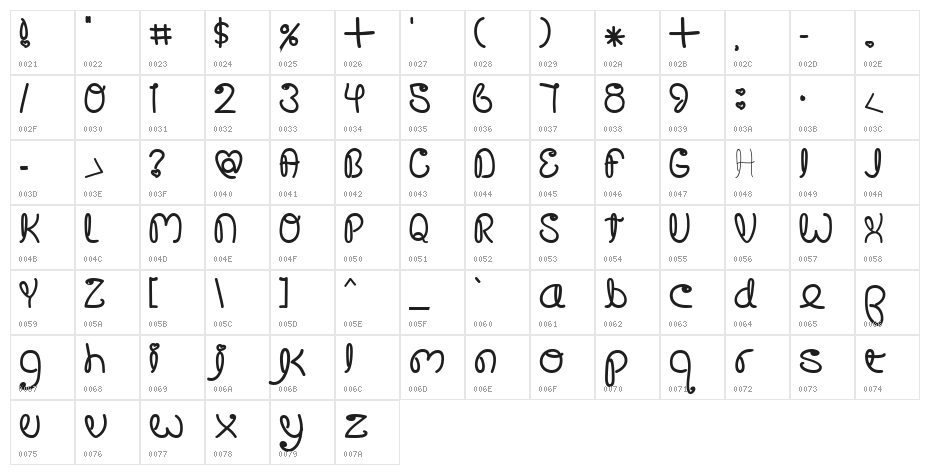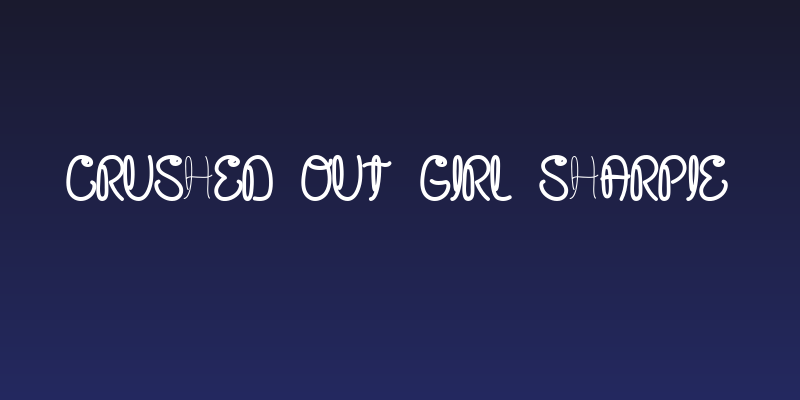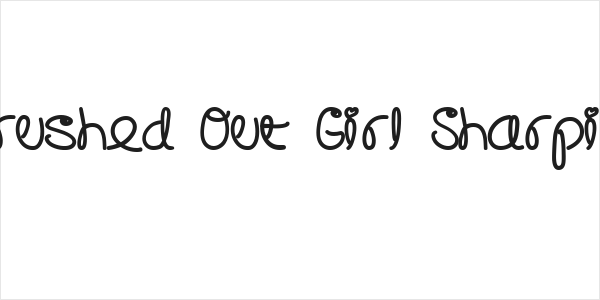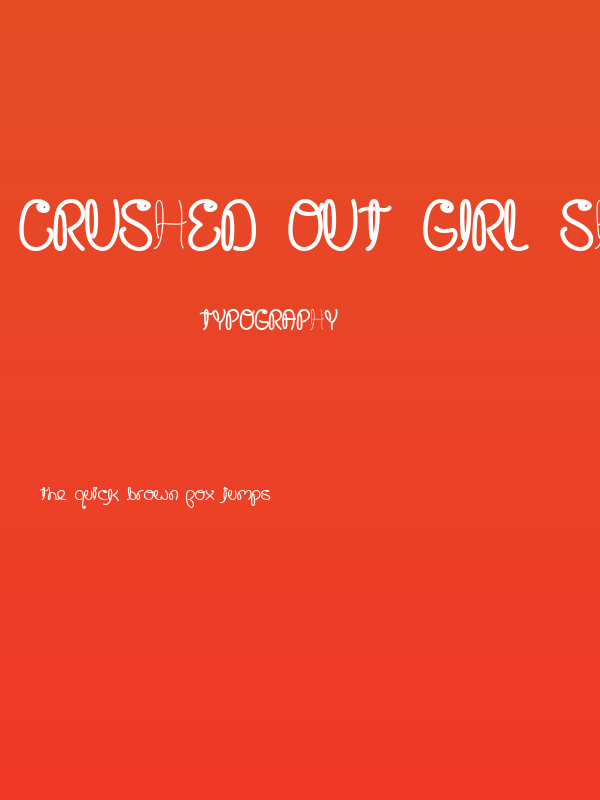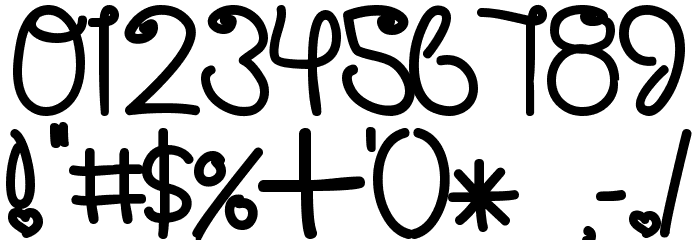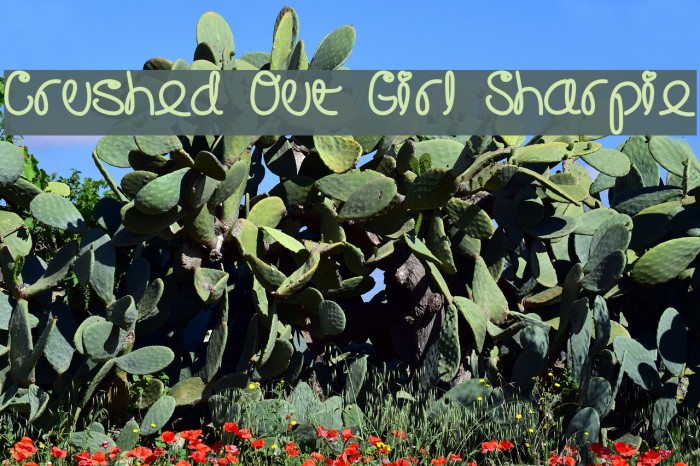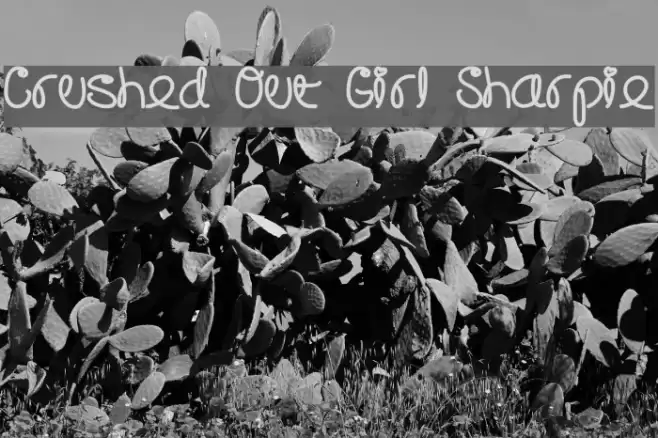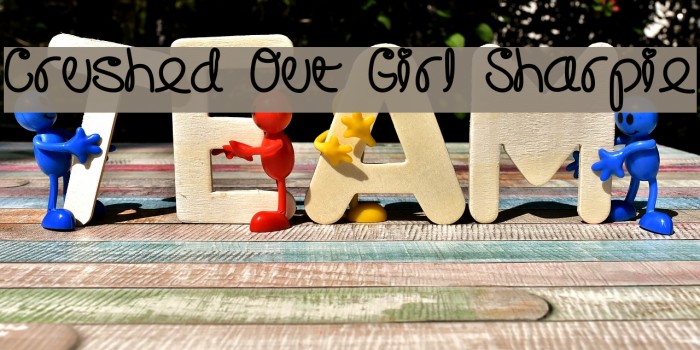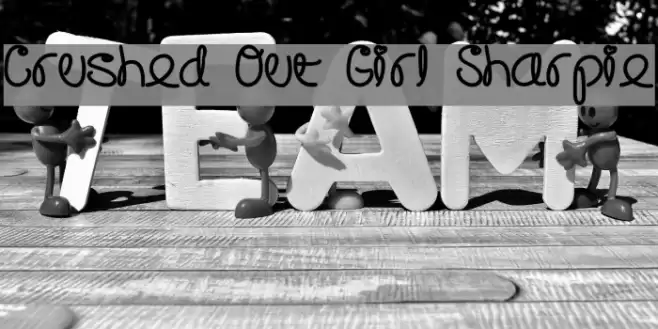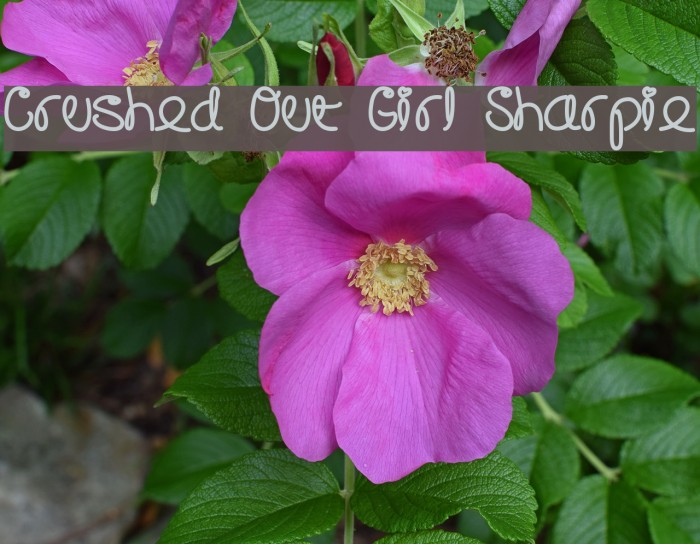
Crushed Out Girl Sharpie Font
Crushed Out Girl Sharpie Description
This playful and whimsical font features a handwritten style with bold, rounded characters. The letters exhibit a unique, artistic flair, with some characters incorporating loops and swirls that add to its charm. The uppercase and lowercase letters maintain a consistent style, while the numbers and special characters complement the overall design. The font's bold strokes and casual appearance make it ideal for projects that require a fun and informal touch.
| Proposed Projects | Ideal for greeting cards, children's book covers, playful branding, and social media graphics. |